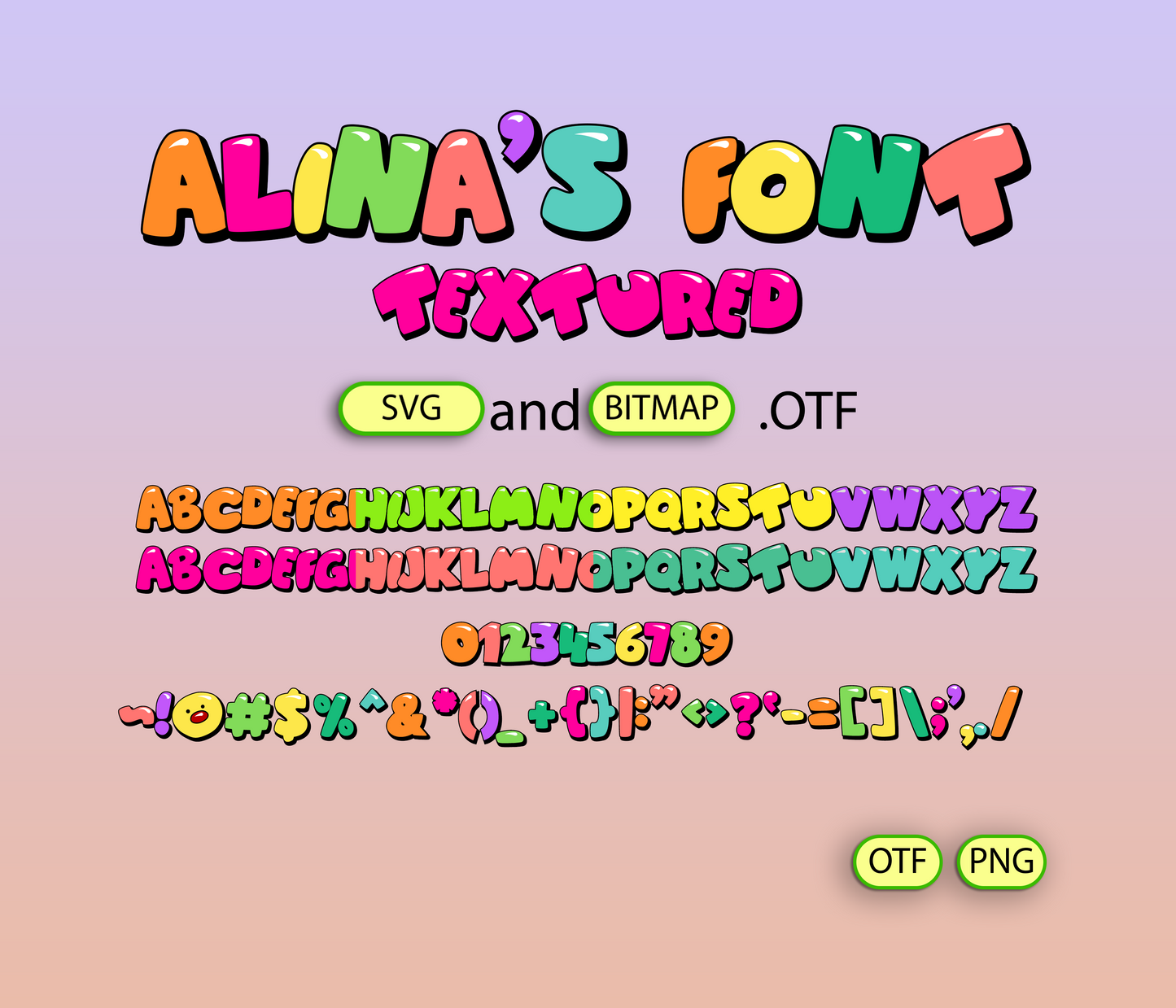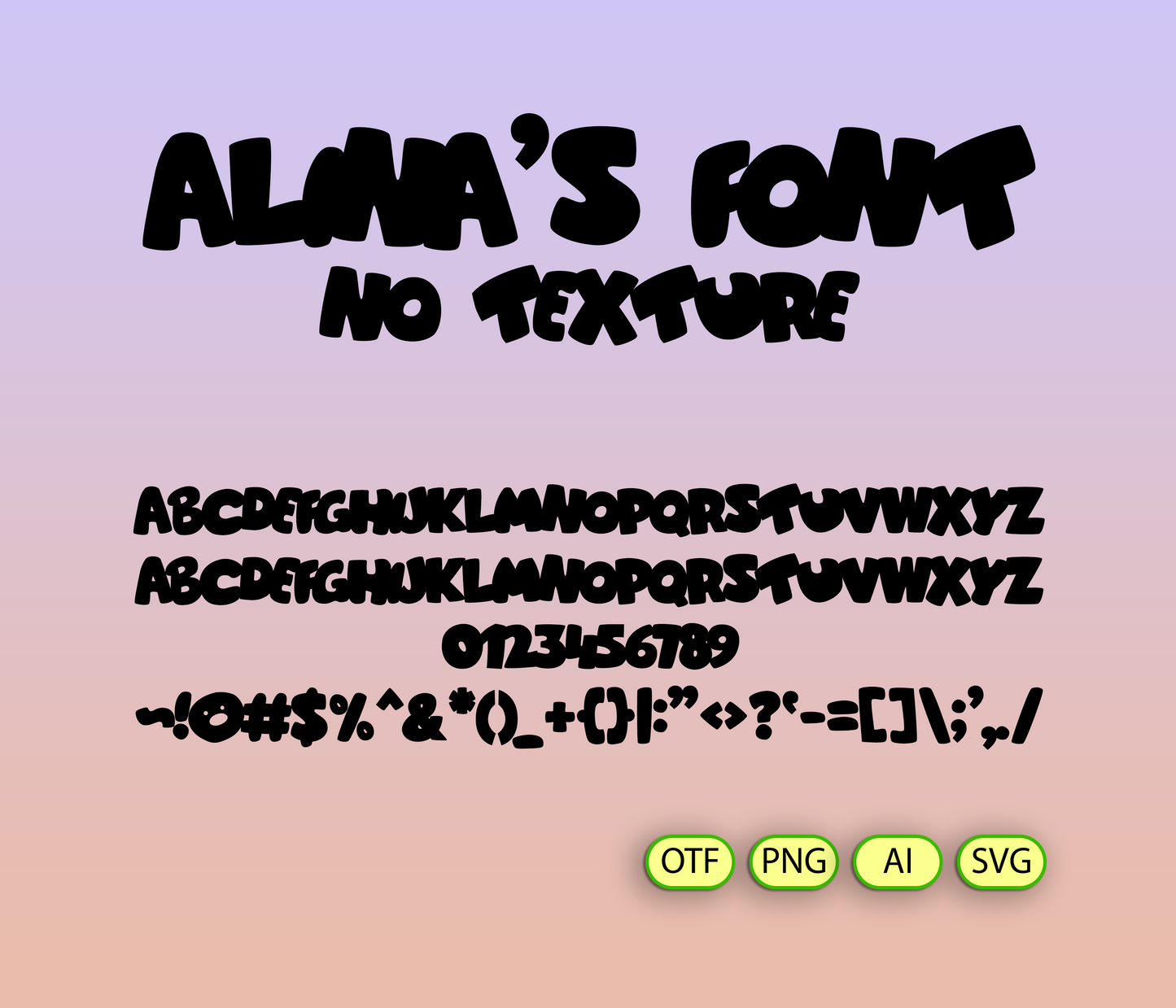
Giggle Sofa Playtime Font Textured
Step into the cheerful world of childhood entertainment with our Giggle Sofa Playtime font, capturing the essence of a beloved children's television show known for its oversized lounging furniture, colorful cast, and playful clock exercises. Perfect for preschool educators, children's party planners, nostalgic merchandise creators, and family-friendly brands, this font brings the whimsical, bouncy spirit of classic 90s children's programming to your projects. Create birthday invitations, themed merchandise, or digital content with the warm, friendly energy of this cherished childhood favorite.
Our Giggle Sofa Playtime font features bubbly, rounded letters and playful characters reflecting the colorful, imaginative world of childhood television entertainment. Ideal for:
Our font pays tribute to the iconic children's entertainment classic, empowering your designs with its joyful and nostalgic spirit. Whether crafting children's party materials, designing educational resources, or adding a playful touch to personal projects, this font communicates the warm essence of childhood imagination and fun. Ready to inject colorful nostalgia into your creations? This font is your key to delightful, impactful design.